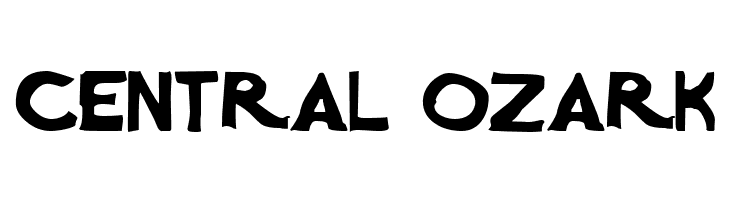
Better Brights Brush Regular Font
- Font: Better Brights Brush Regular
( Fonts by Greg Meronek - GregoryFonts )
A bold, playful font with a hand-drawn, dynamic style.